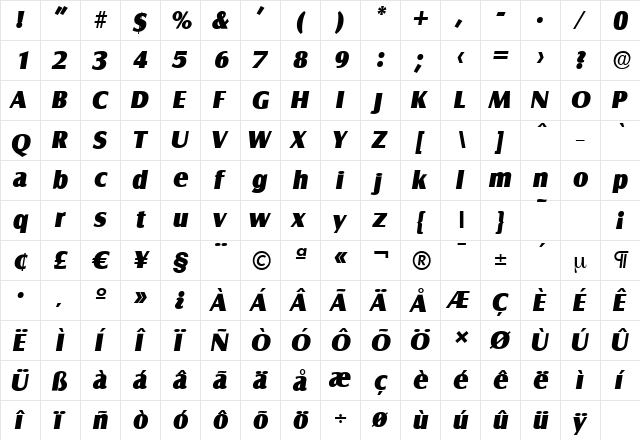
SalzburgSerial-Heavy Italic
Design Context for SalzburgSerial-Heavy Typeface
SalzburgSerial-Heavy takes a measured approach to typography — its balanced proportions and neutral character make it a reliable workhorse for both digital and print work. The dynamic lean of this cut emphasises speed and emphasis in any layout.
Pro Tip: Use SalzburgSerial-Heavy for emphasis, pull quotes, and subheadings where its slanted energy can add rhythm to the layout.